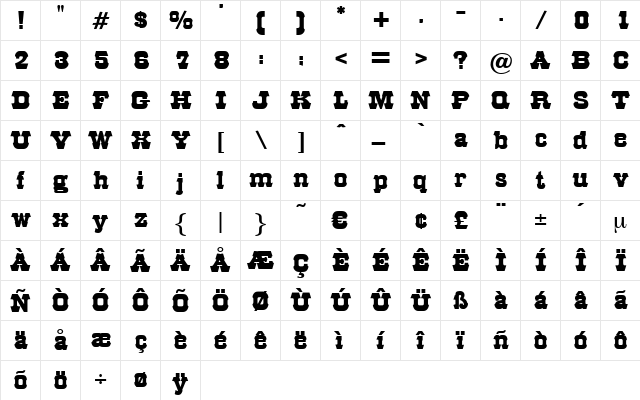
Mustang Regular
Design Context for Mustang Typeface
Mustang is a composed and adaptable typeface that performs quietly and consistently across a wide range of design contexts.
Pro Tip: Pair Mustang with a font of contrasting weight or personality to build a more expressive typographic hierarchy.